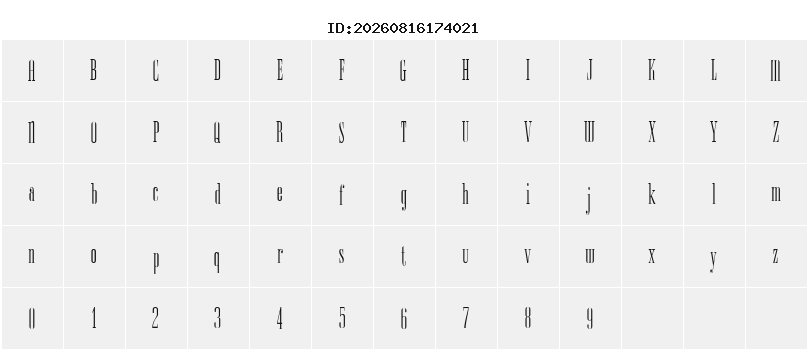
• Font Name: Spire ExtraLight Alt
• Full Font Name: Spire ExtraLight Alt
Spire ExtraLight Alt.ttf is a modern, elegant sans-serif font designed for ultimate readability and visual harmony. Perfect for branding, headlines, web design, and print materials.